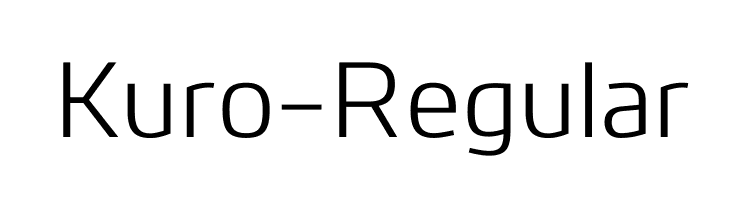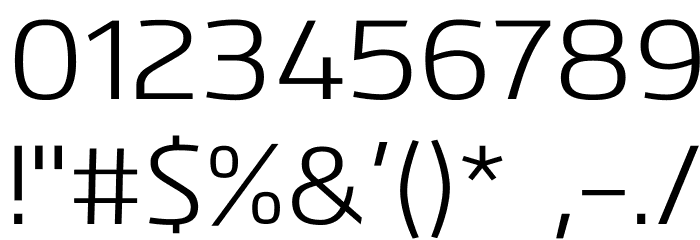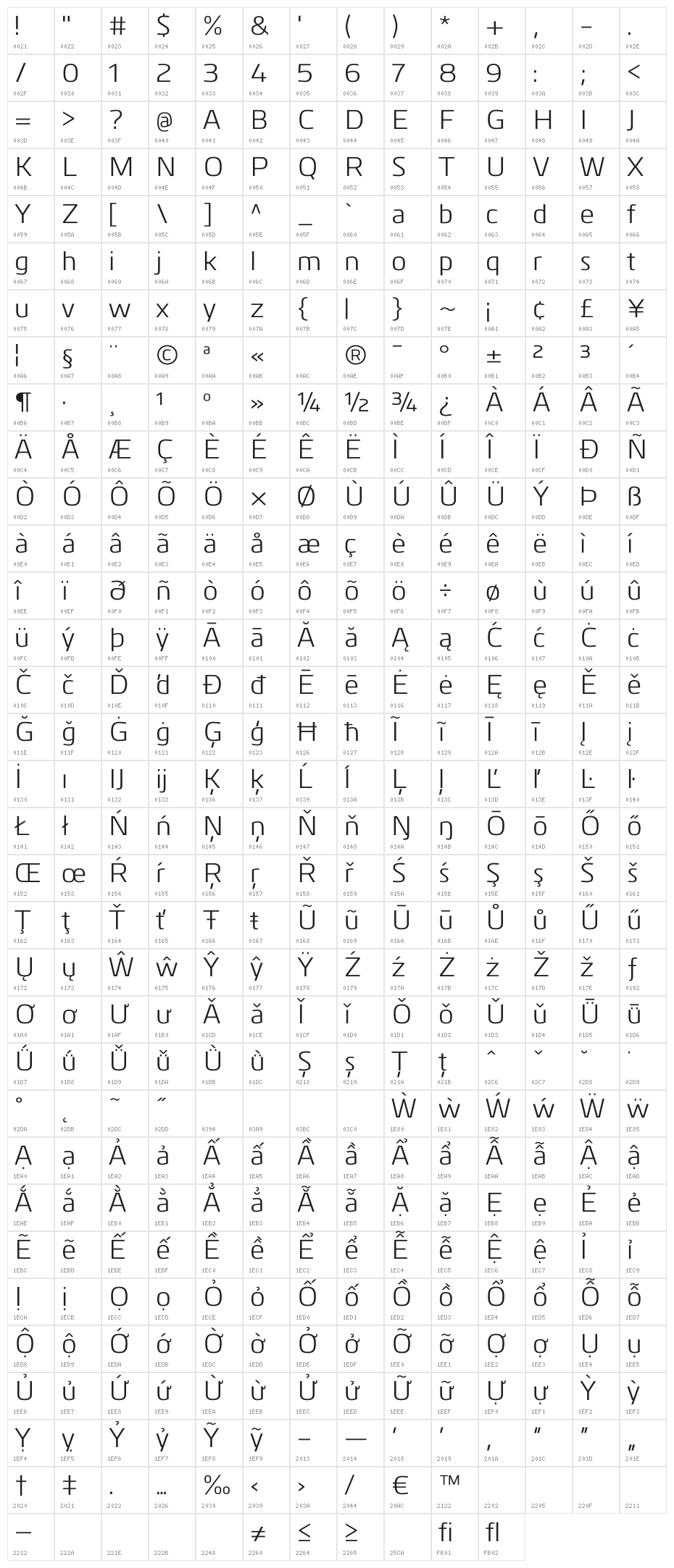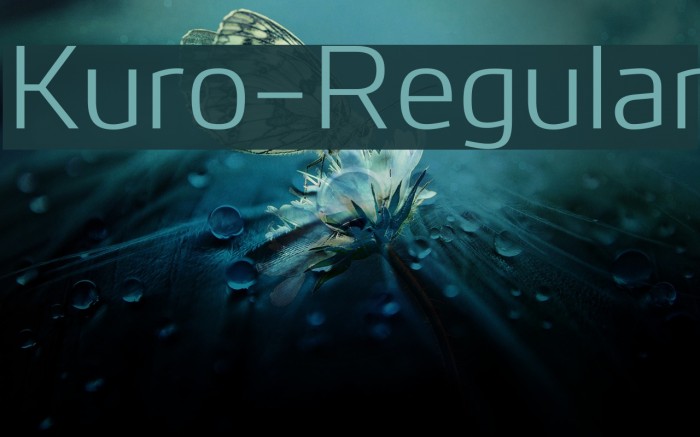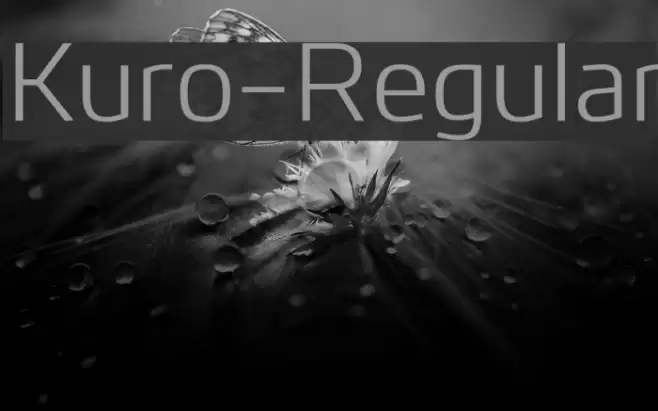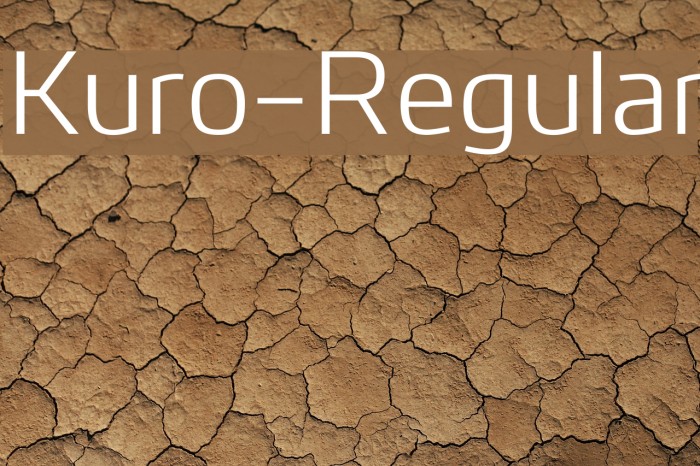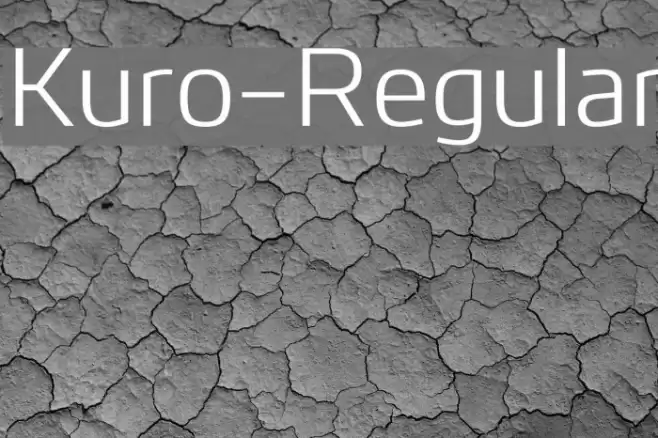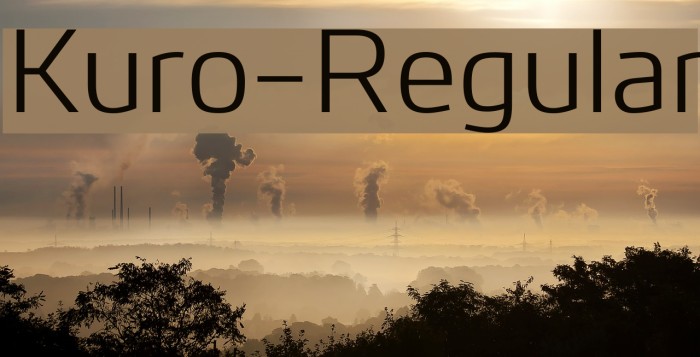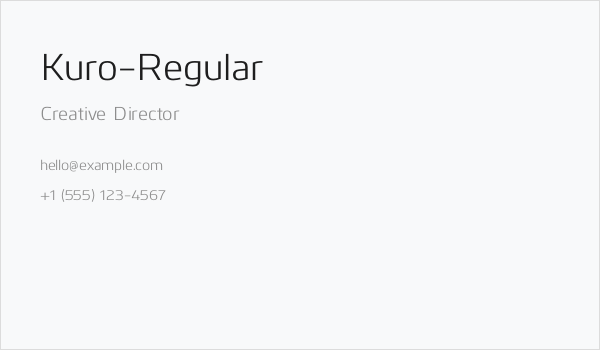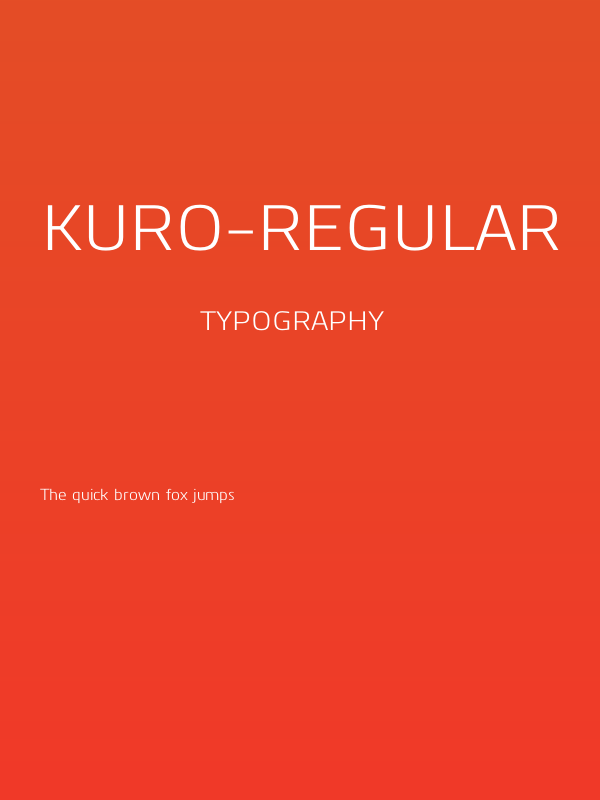
Kuro-Regular Font
Kuro-Regular Description
This font features a clean and modern sans-serif style with a geometric influence. The characters are well-balanced, offering a harmonious appearance that is both professional and approachable. The uppercase letters are bold and assertive, while the lowercase letters maintain a friendly and open feel. The numerals are clear and easily distinguishable, making them suitable for various applications. Special characters are designed with simplicity and clarity in mind, ensuring they integrate seamlessly with the rest of the typeface. Overall, this font is versatile, suitable for both digital and print media, and can be used in a variety of contexts from corporate branding to editorial design.